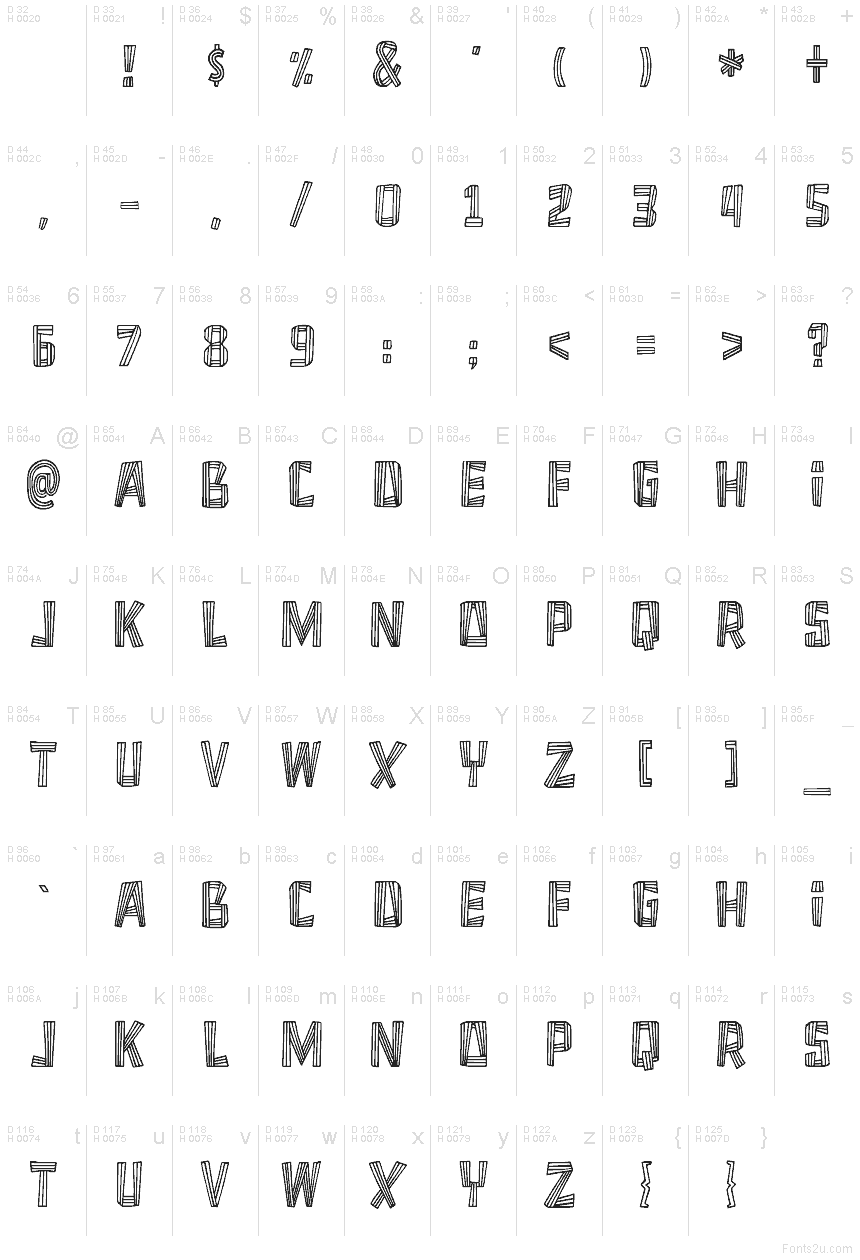
Le Zombie en Retard
Le Zombie en Retard font by BlackFridayFont FMF is a free decorative display font built from bandage-wrapped strokes that stack into lanky, off-kilter letters. The linework feels hand-scratched and restless, giving headlines a shivery, comic-horror energy without slipping into illegibility. Set large and it reads like torn gauze stretched over bones—gritty, cheeky, and instantly thematic.
Using Le Zombie en Retard, you can punch up Halloween posters, B‑movie titles, haunted house flyers, escape room branding, spooky party invites, and loud YouTube thumbnails. This free font shines in short, punchy lines; add a clean grotesque for body copy and nudge tracking slightly to let the stripes breathe.